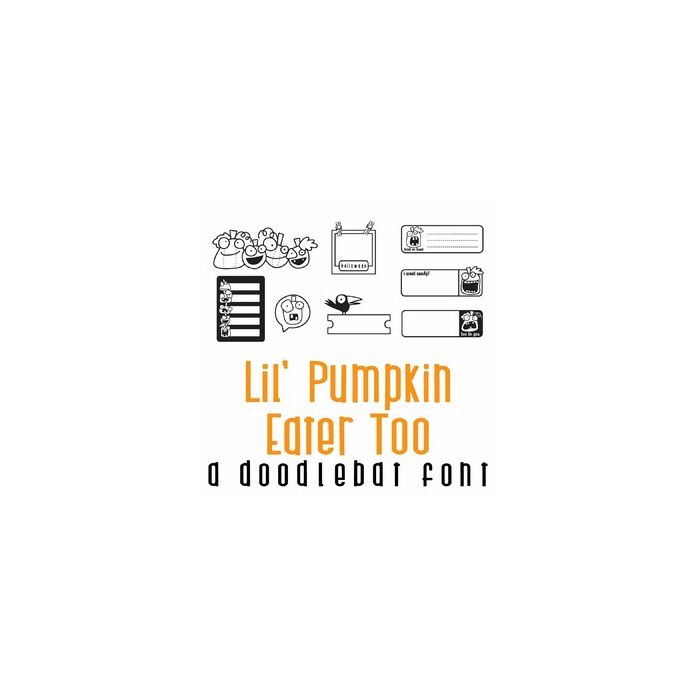
This fun doodlebat font features 26 adorable pumpkin and jack-o-lantern journaling images. Perfect for cards, gifts, decor, crafts, scrap book pages, planner stickers and more!